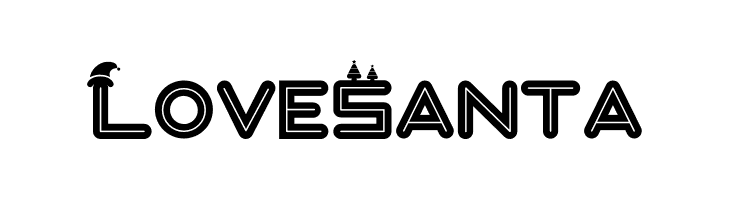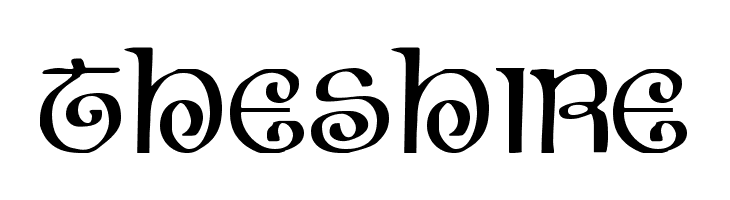
An elegant, flowing script font with interconnected, delicate strokes.
An ornate and decorative font with intricate flourishes and unique curves.
A whimsical, decorative font with intricate curves and playful swirls.
A whimsical, decorative font with flowing, ornate letterforms and unique curls.
A festive, decorative font with Christmas-themed embellishments on uppercase letters.
A decorative Blackletter font with intricate, medieval-inspired design.
An ornate Blackletter font with intricate swirls and bold strokes.
A whimsical, heart-embellished decorative font with a playful and romantic style.
An ornate and decorative script font with elaborate swirls and loops.
A cursive, handwritten font with elegant loops and smooth curves.